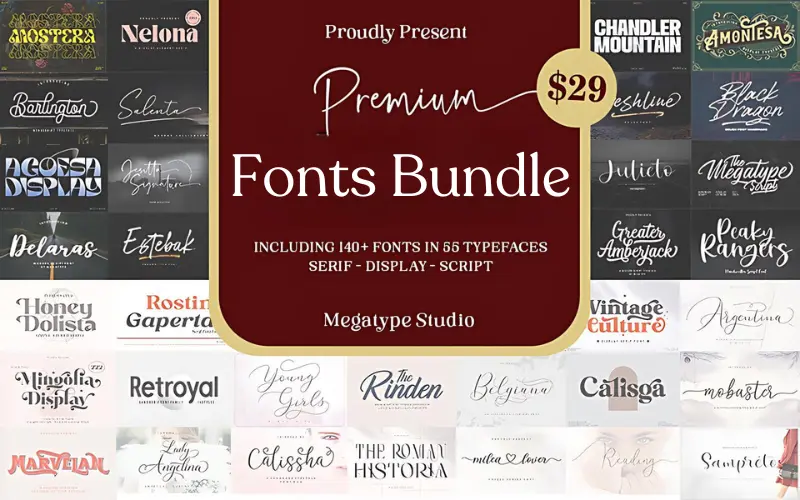
Premium Fonts Bundle
This bundle includes many font styles like best brush strokes, display typography, elegant sans serif, simple calligraphy, signature type and fancy script.
The Premium Fonts Bundle Includes:
Elegant Sans Serif Fonts:
Nelona Serif Font
Rosting Gapertas Font
Honey Dolista Font
Ralley Font
Bestore Font
Mishega Font
Calisga Font
The Roman Historia Font
Retroyal Font
Good Selection Sans Font
Mostera Font
Salenta Font
Hello Molydia Font
Calissha Script
Display Typography Fonts:
Amontesa Font
Agoesa Display
Mingolia Display Font
Bright Aurora Font
Marvelan Font
Chandler Mountain Font
The Rinden Font
Sampreto Font
Best Brush Stroke Fonts:
Peaky Rangers
Estebak Brush Font
Freshline Brush Font
Black Dragon Font
Premium Script Fonts:
Julieto Font
Bethanya Font
Gebrina Font
Mareline Script
Megatype Font
Reading Signature Font
Ramolina Font
Wacthout Font
Lady Angelina Font
Histeria Dinamond Font
Marchanda Script
Yoshieka Font
Prestiquen Font
Kamelia Font
Argentina Font
Mobaster Font
Marliesta Font
Belgiana Font
Young Girls Font
Jesitta Signature Font
Hello Balgetia Font
Milea Lover Font
Greater Amberjack Font
Helostar Font
Vintage Culture Font
Baby Valentina Font
Belia Anestasha Font
Barlington Font